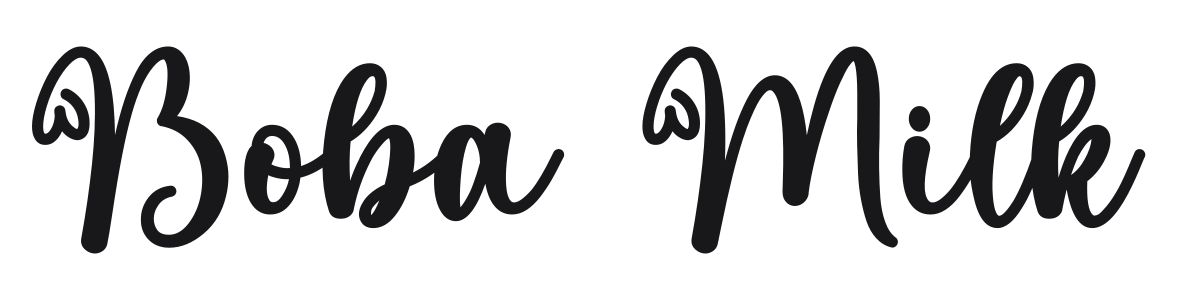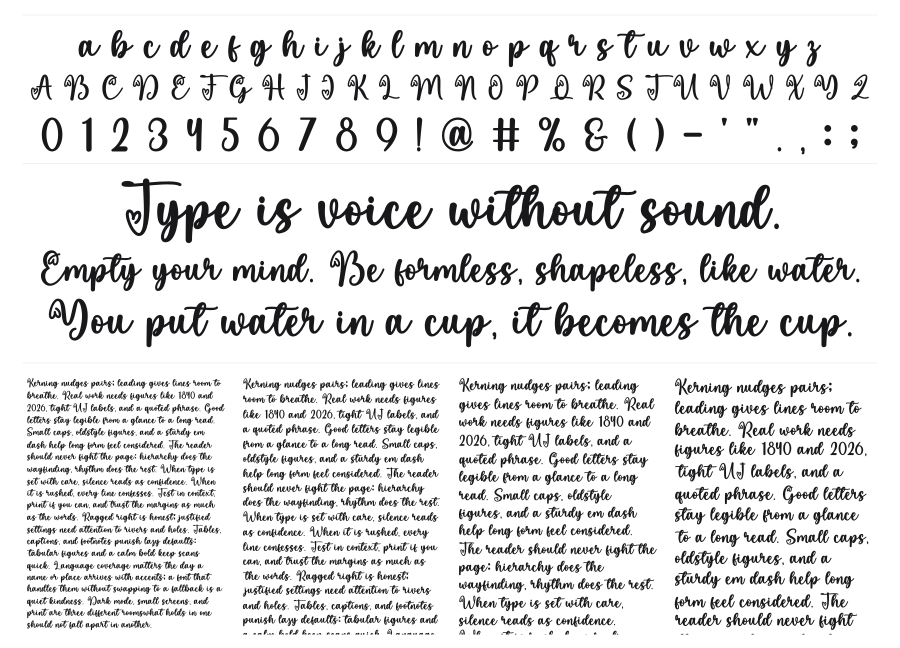
Boba Milk
Boba Milk is a bold connected brush script with a lively, handcrafted energy. Thick downstrokes and smooth flowing joins give it the warmth of hand lettering without feeling rough or unpolished. It carries the relaxed personality of cafe signage, bubble tea branding, and food packaging.